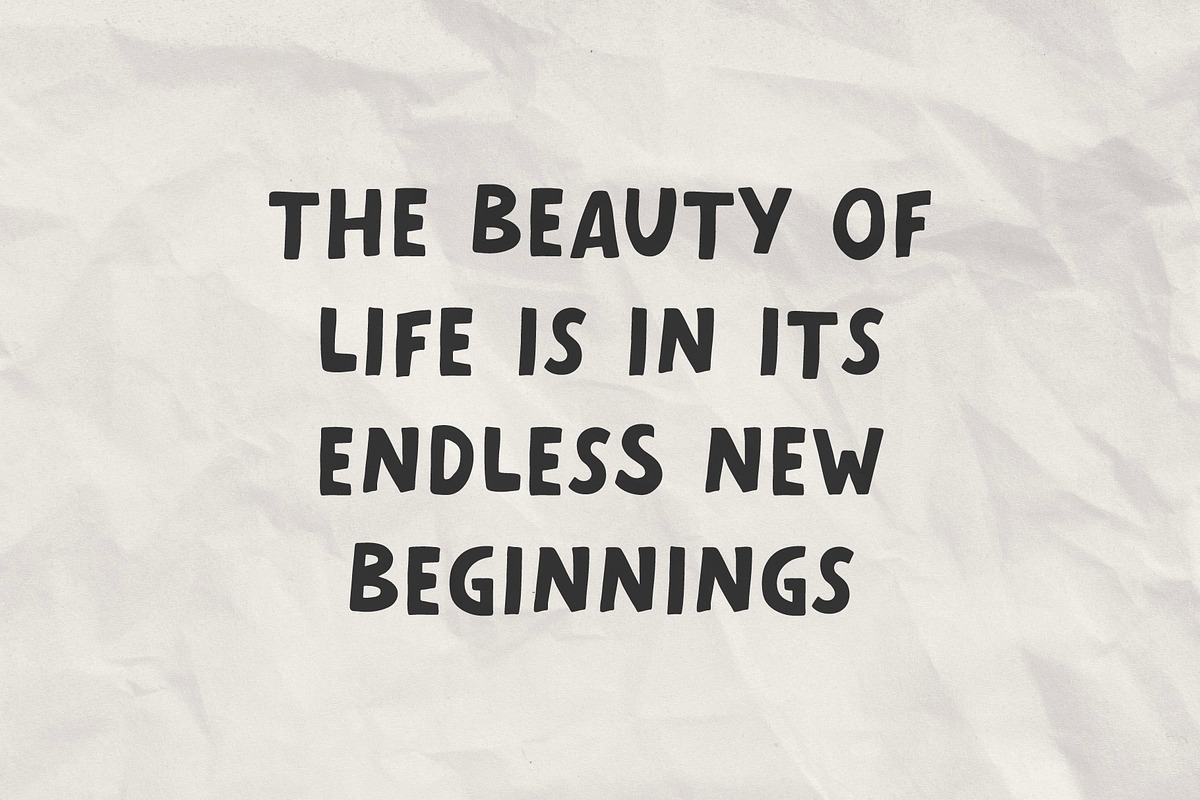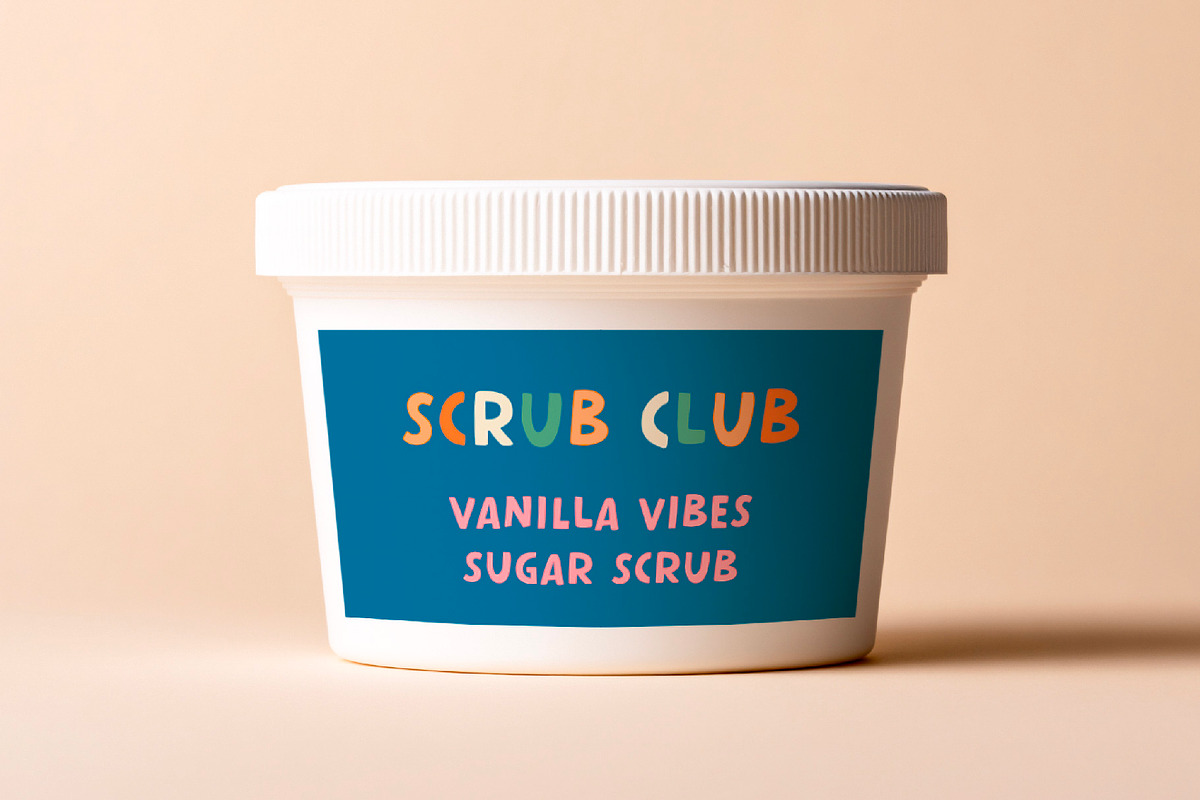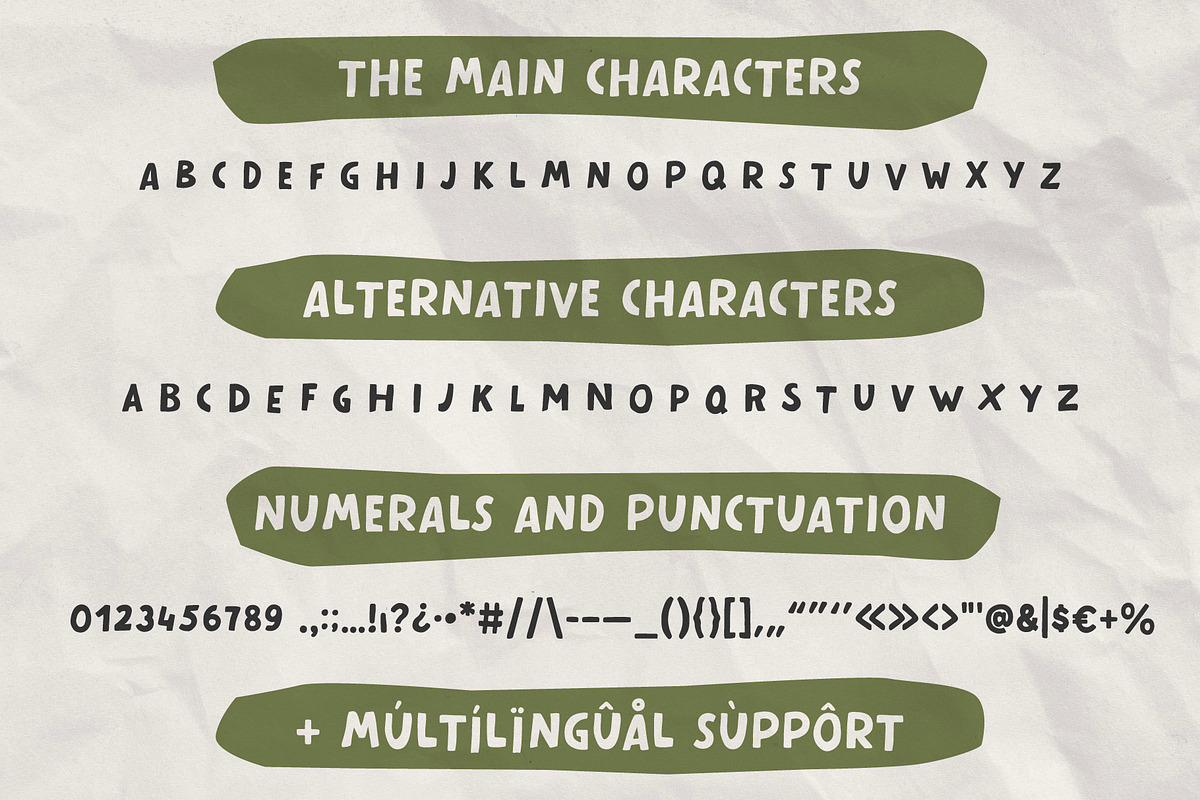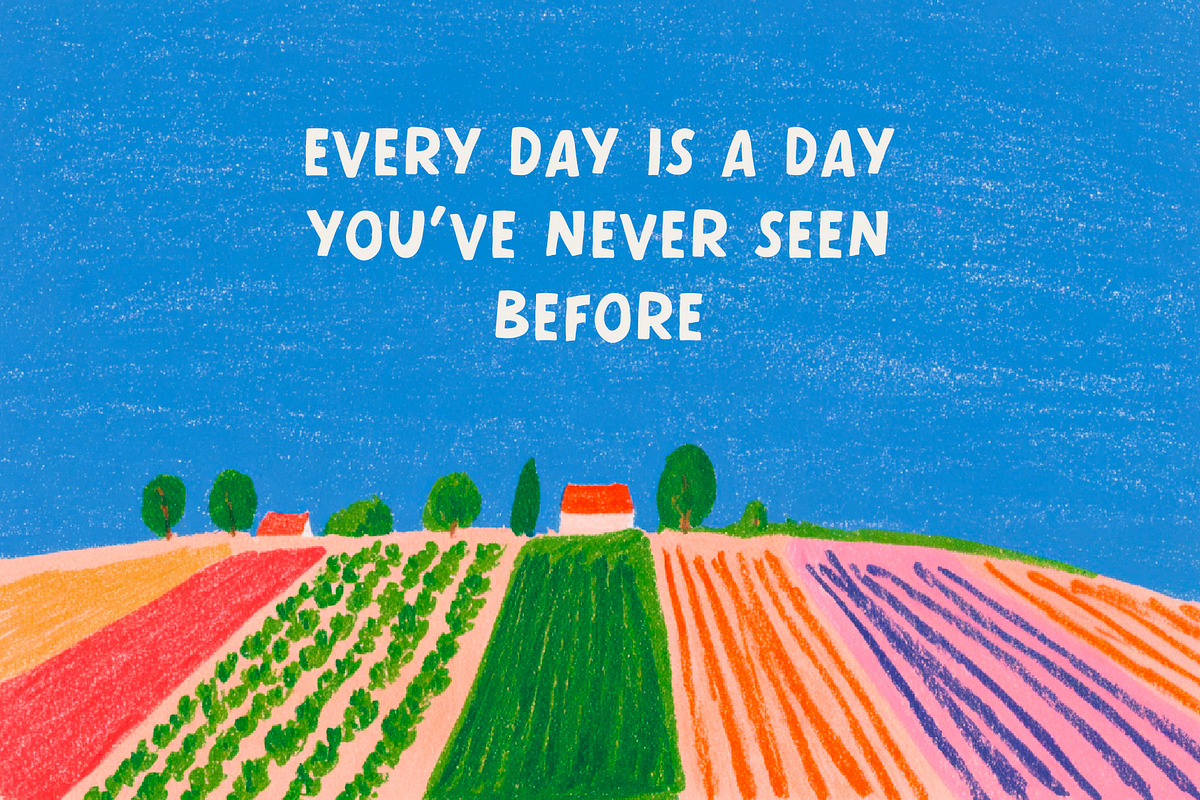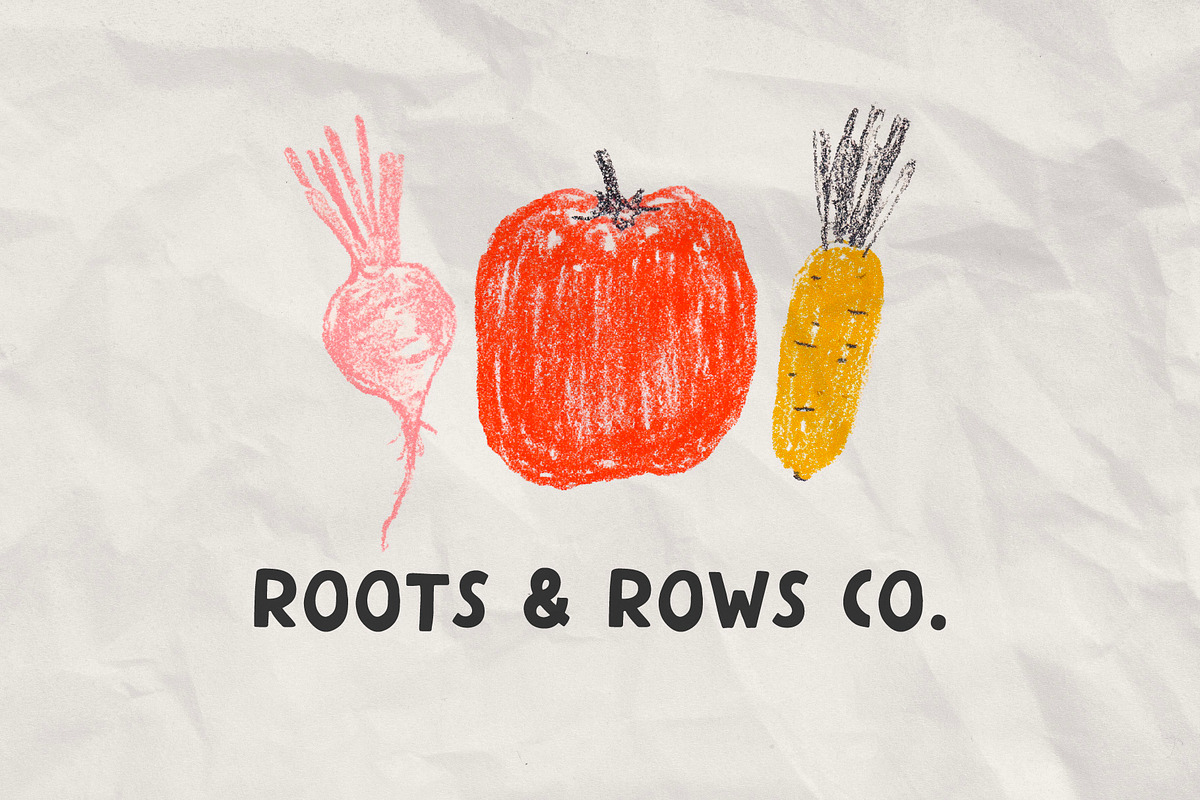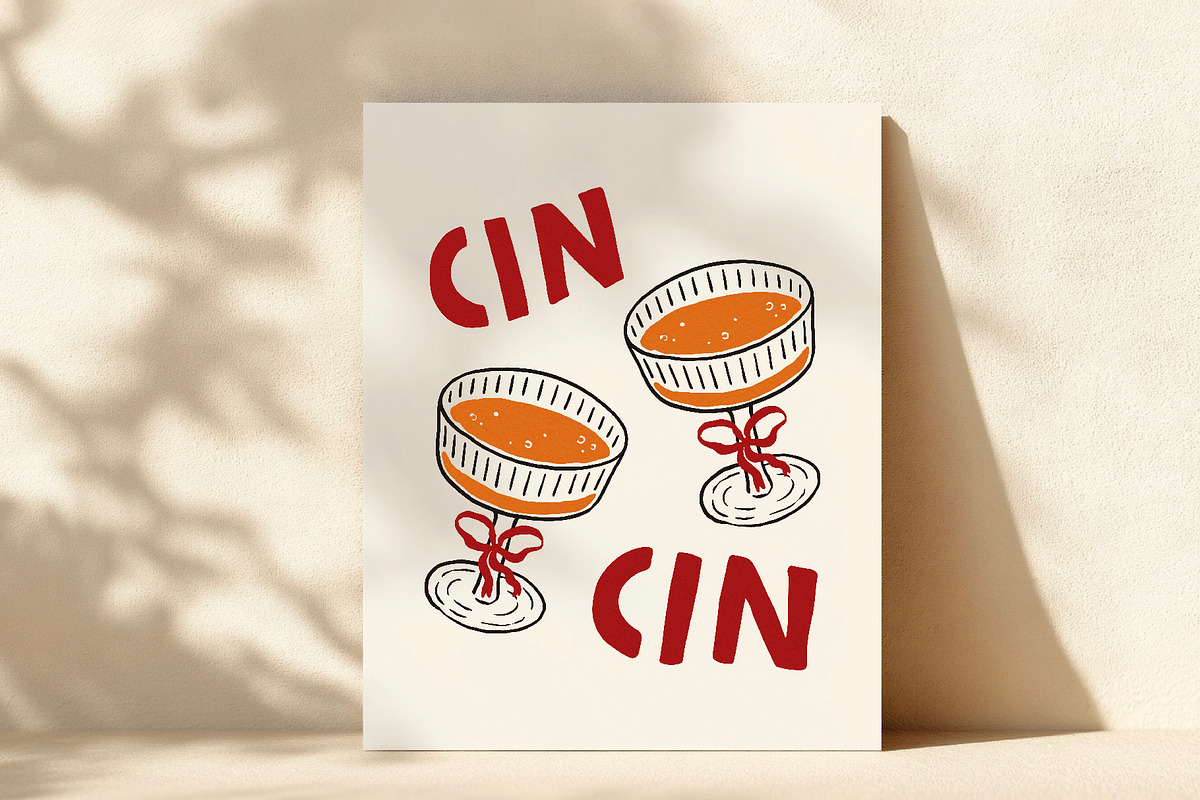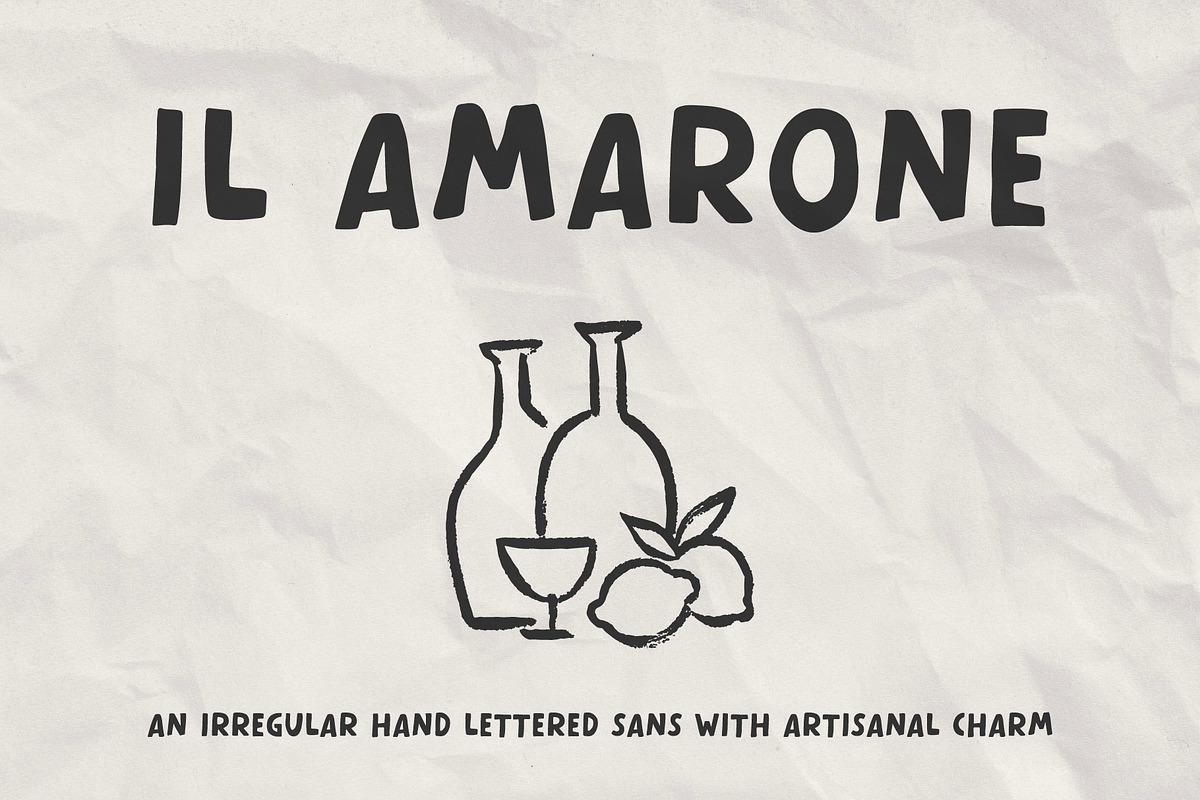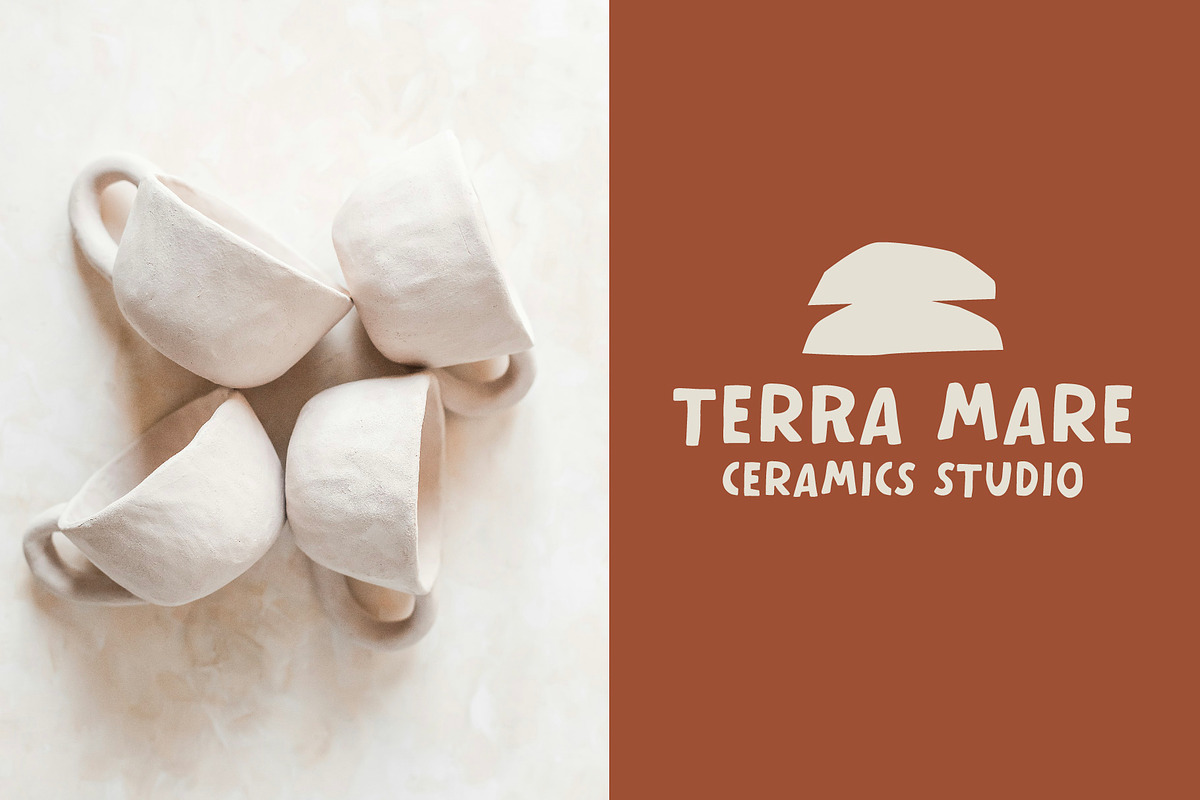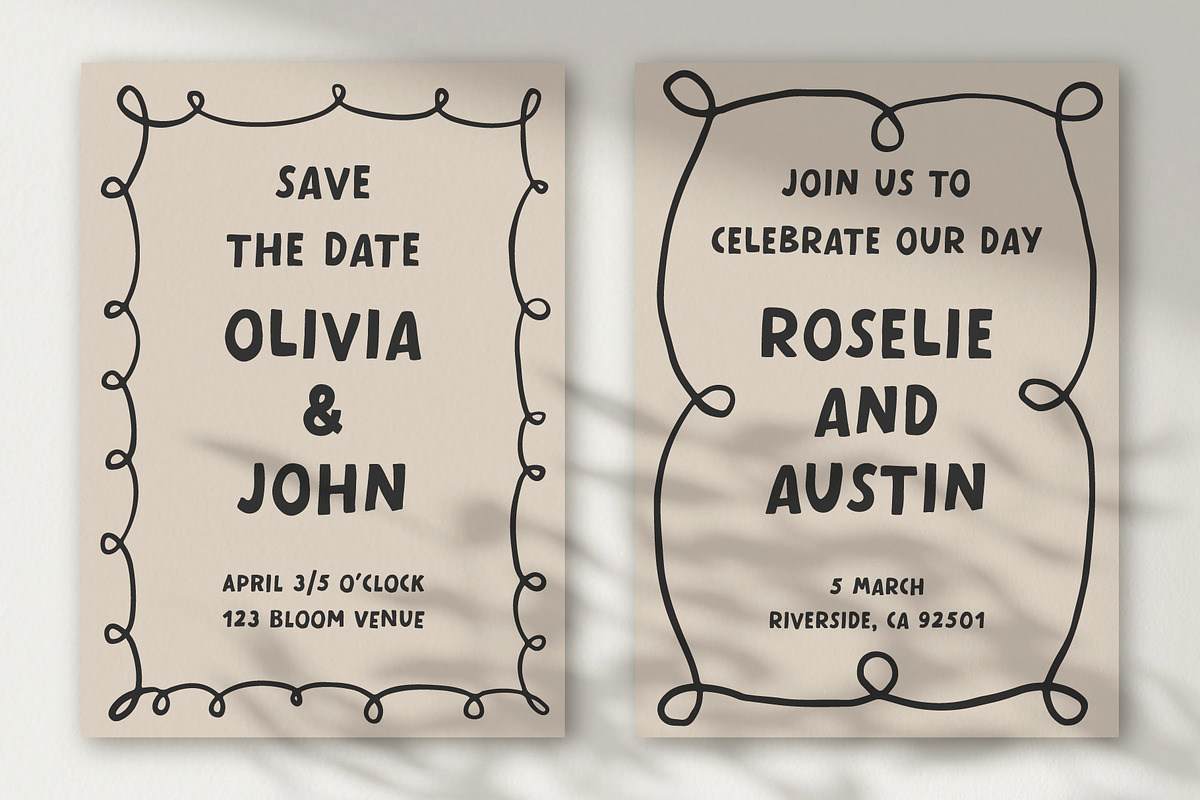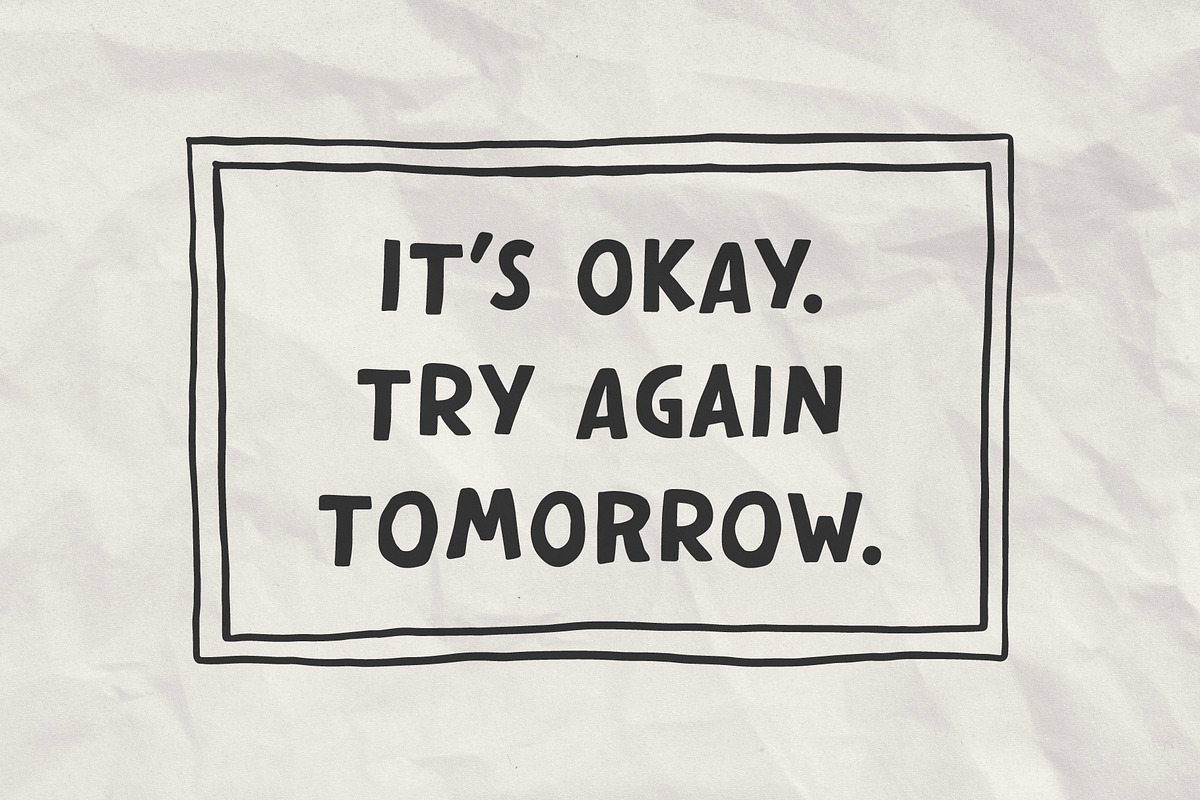
Il Amarone Hand Lettered Sans
"Il Amarone" is a modern hand lettered sans serif font designed for bold designs! Its subtle imperfections and organic flow give each letter a human touch, making it perfect for branding, packaging, posters, and any project that seeks a natural, approachable aesthetic. Perfect for anyone looking to add a fun, lively touch to any project. It’s also an excellent choice for unique logo and branding concepts that demand personality.
- Hand-lettered sans serif style
- Alternative character set for added versatility
- Multilingual support for Basic Latin and Western European languages — check the preview box to confirm your language compatibility